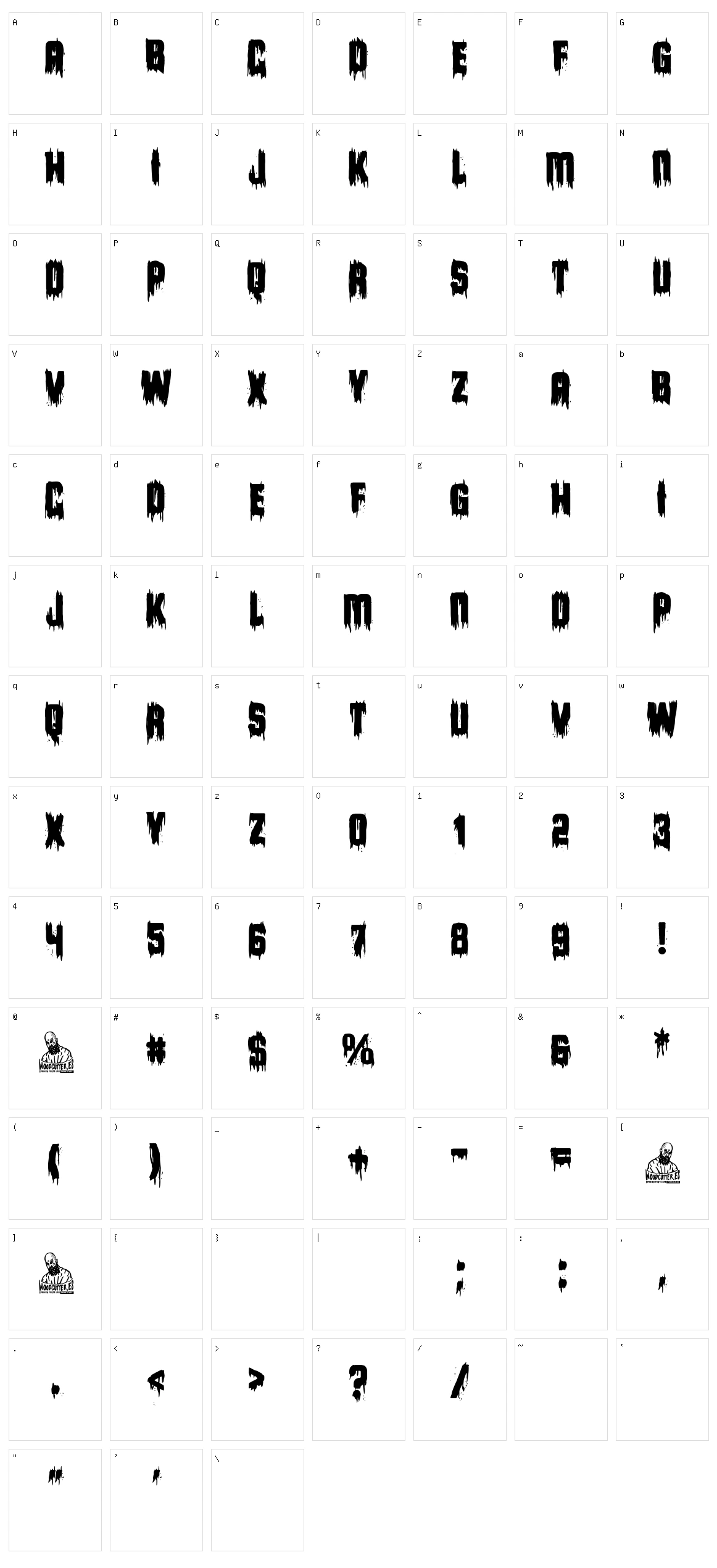
The free font Dark Flowers Garden is carefully designed by Woodcutter, showcasing a thoughtful balance of creativity and usability and falls under the Horror font style. When you download the ZIP file, it contains only 66.12 KB of font files, making it lightweight and quick to download. Please review the license details below to understand permitted usage and distribution rights. If license information is not available, we recommend using this font for personal projects only or contacting the author directly for commercial usage permissions.